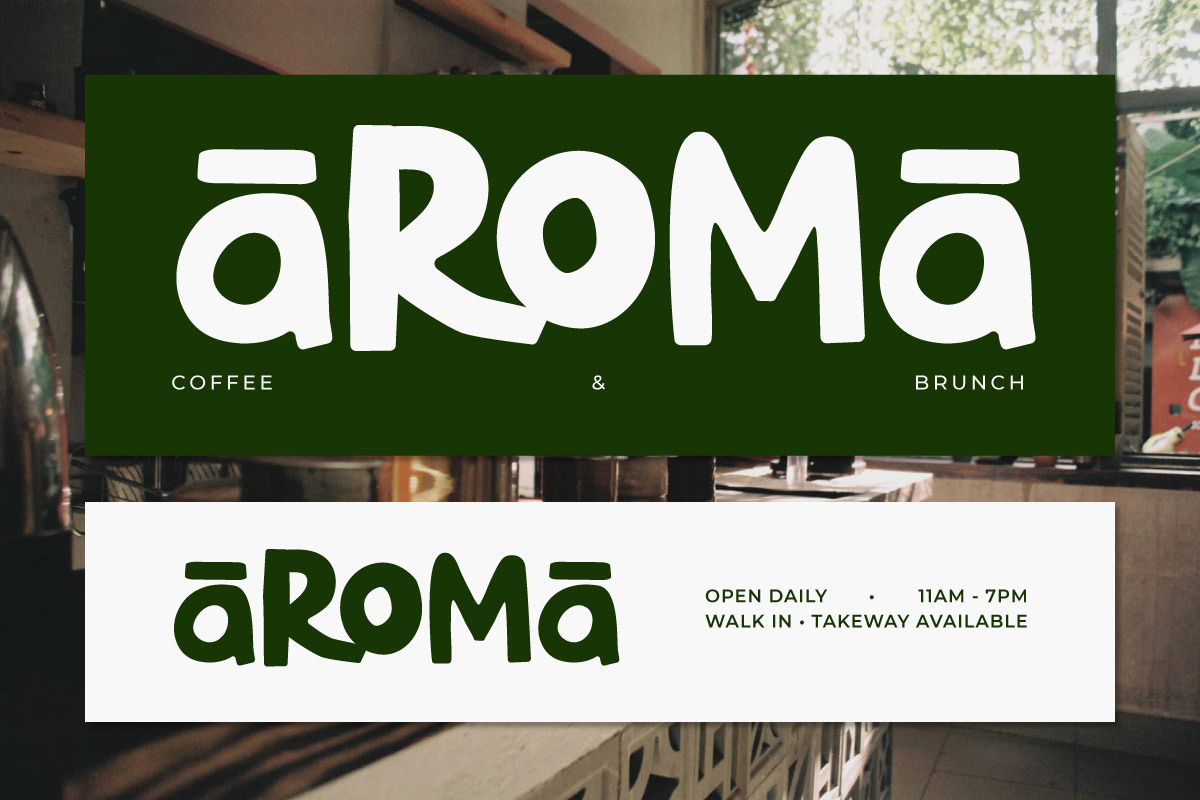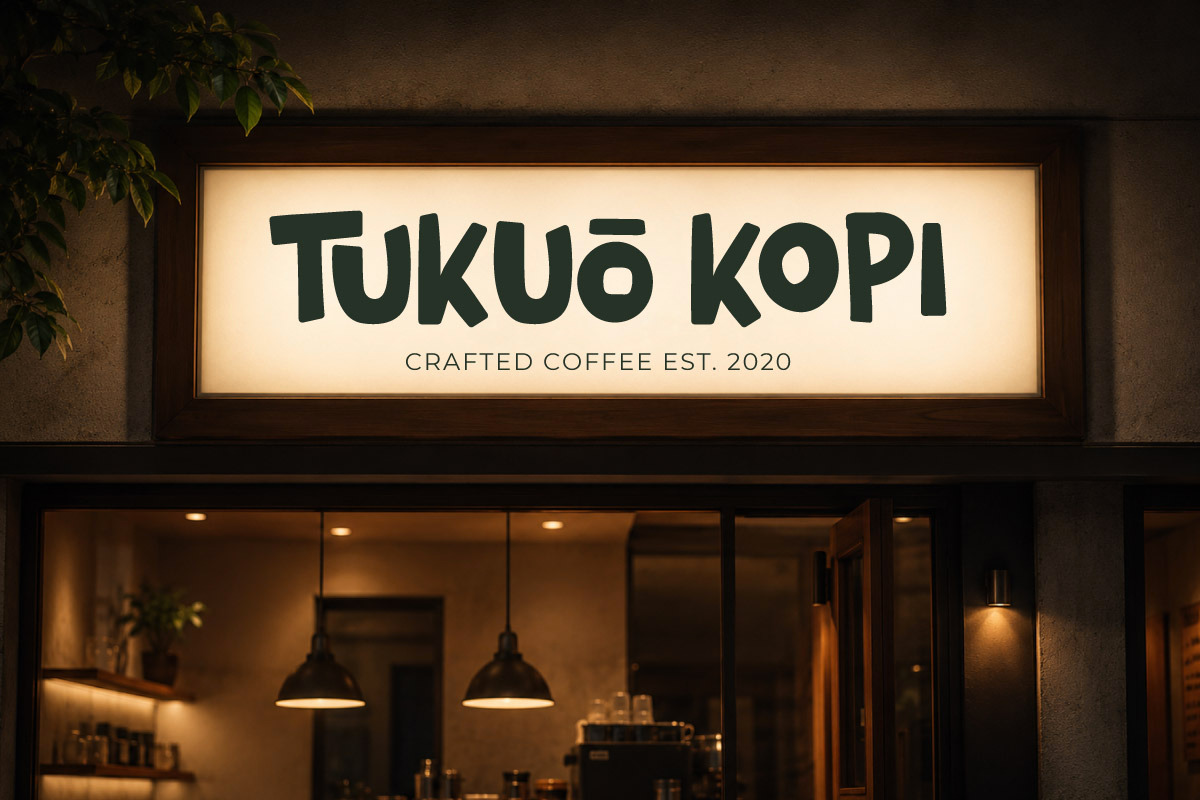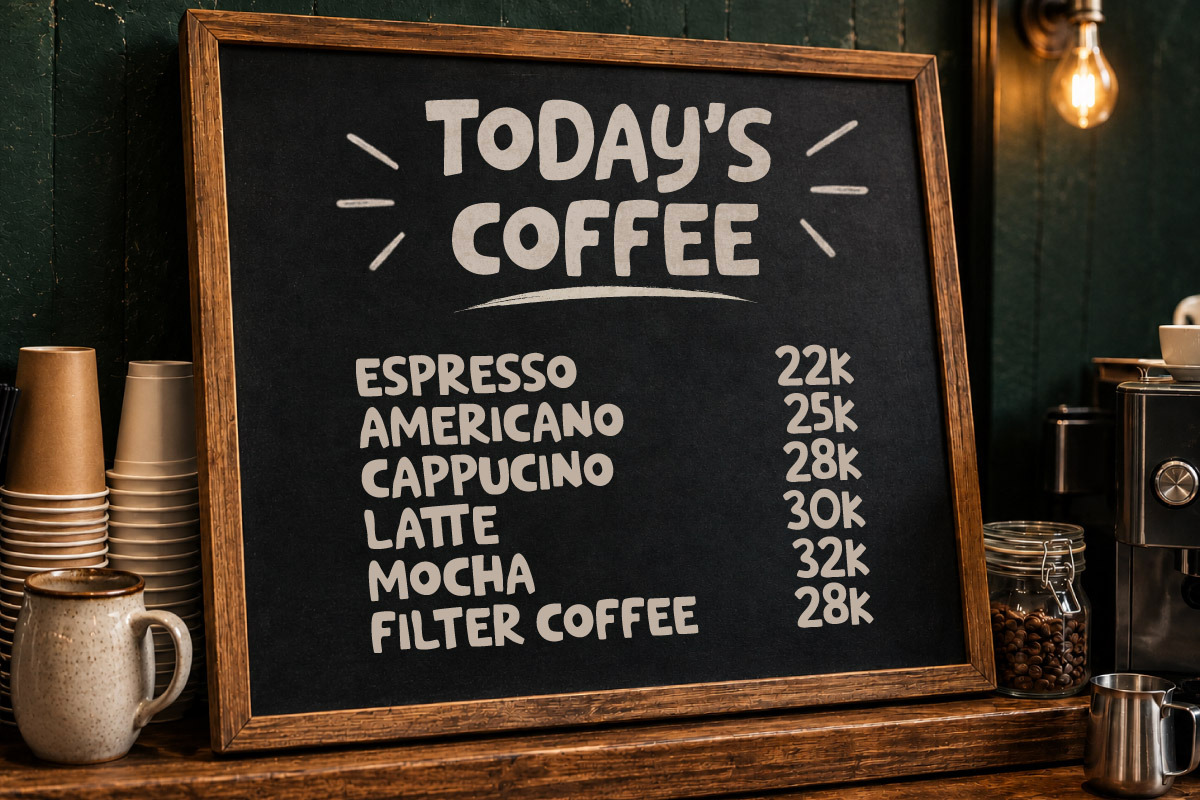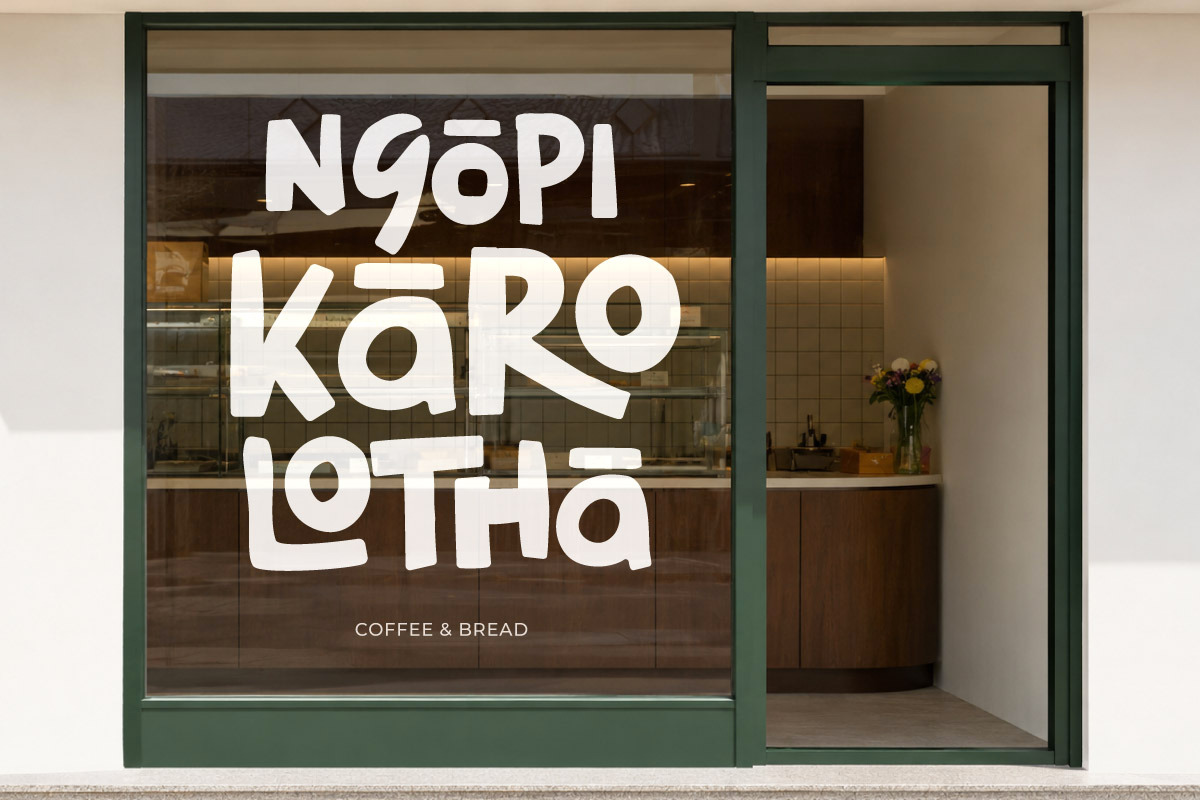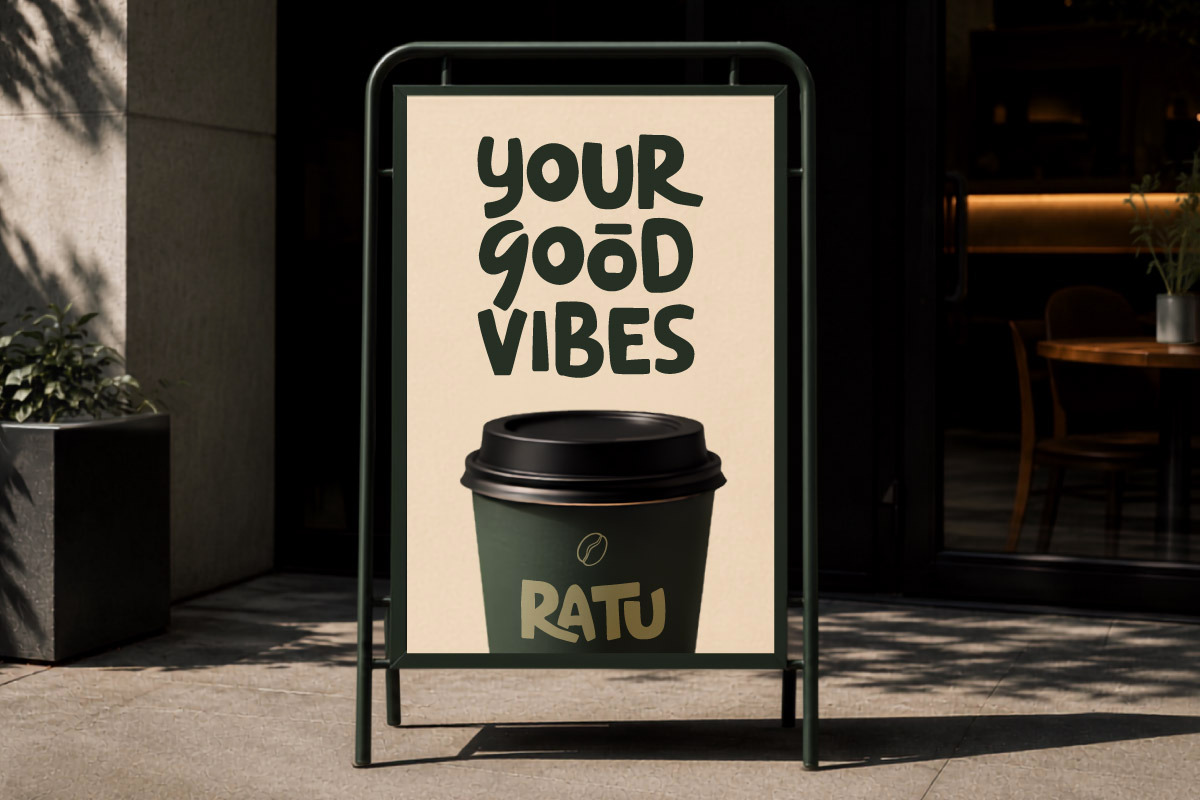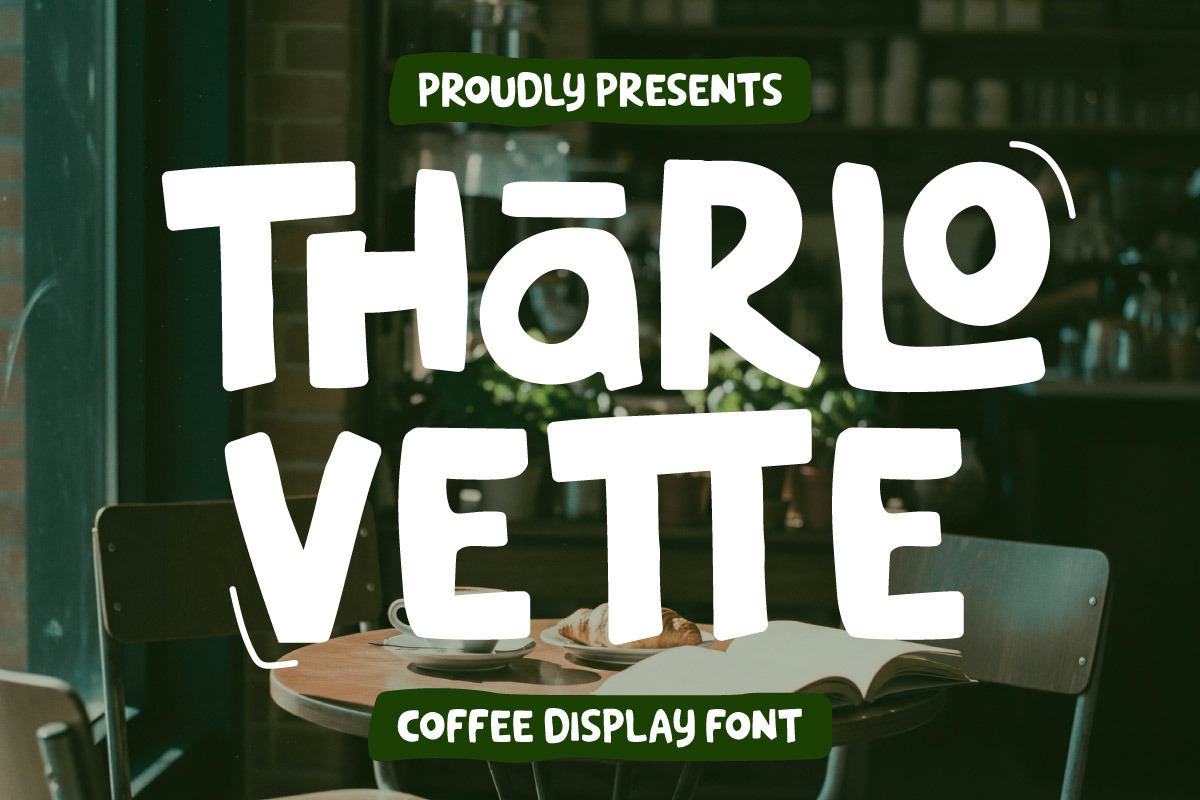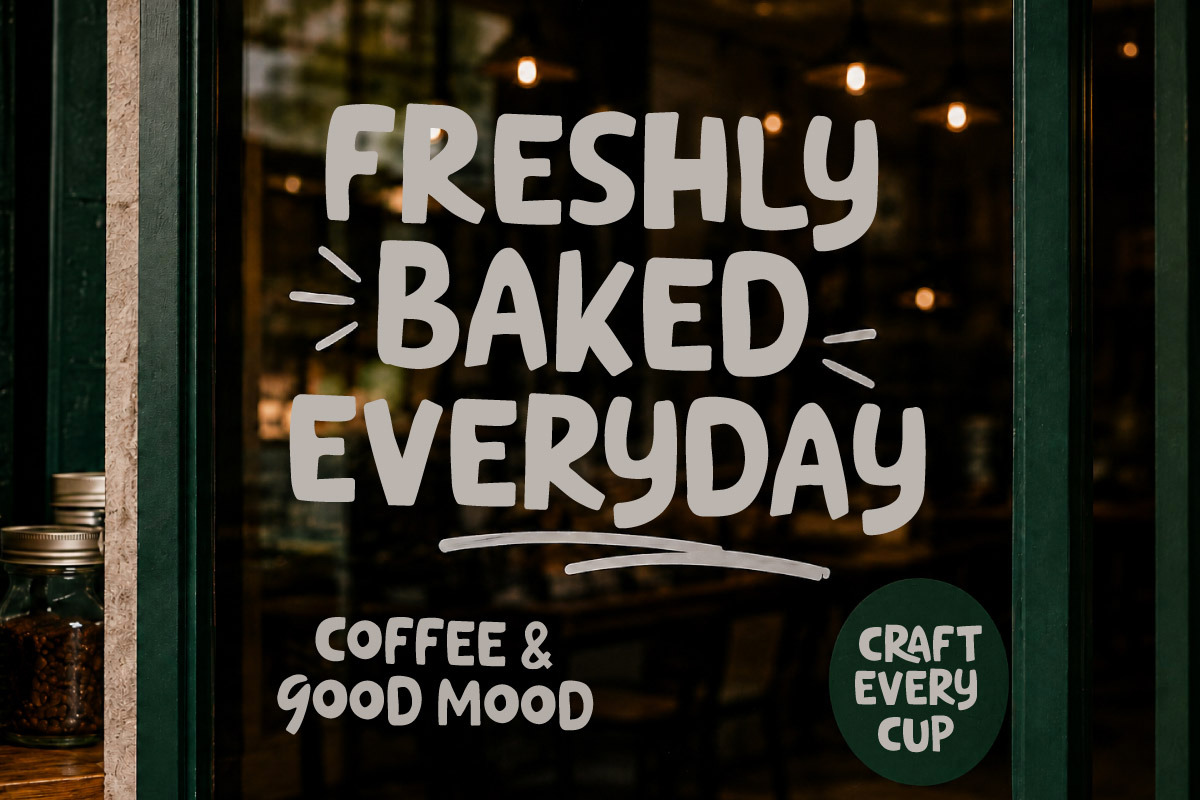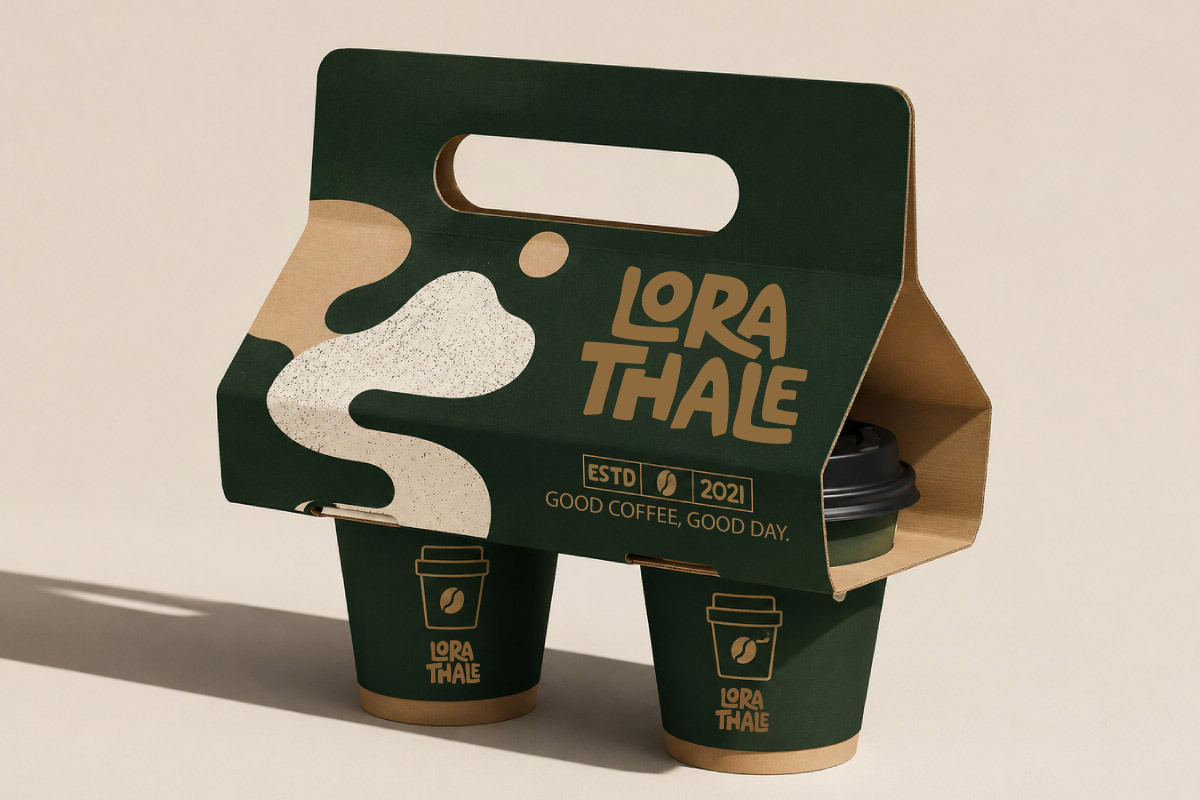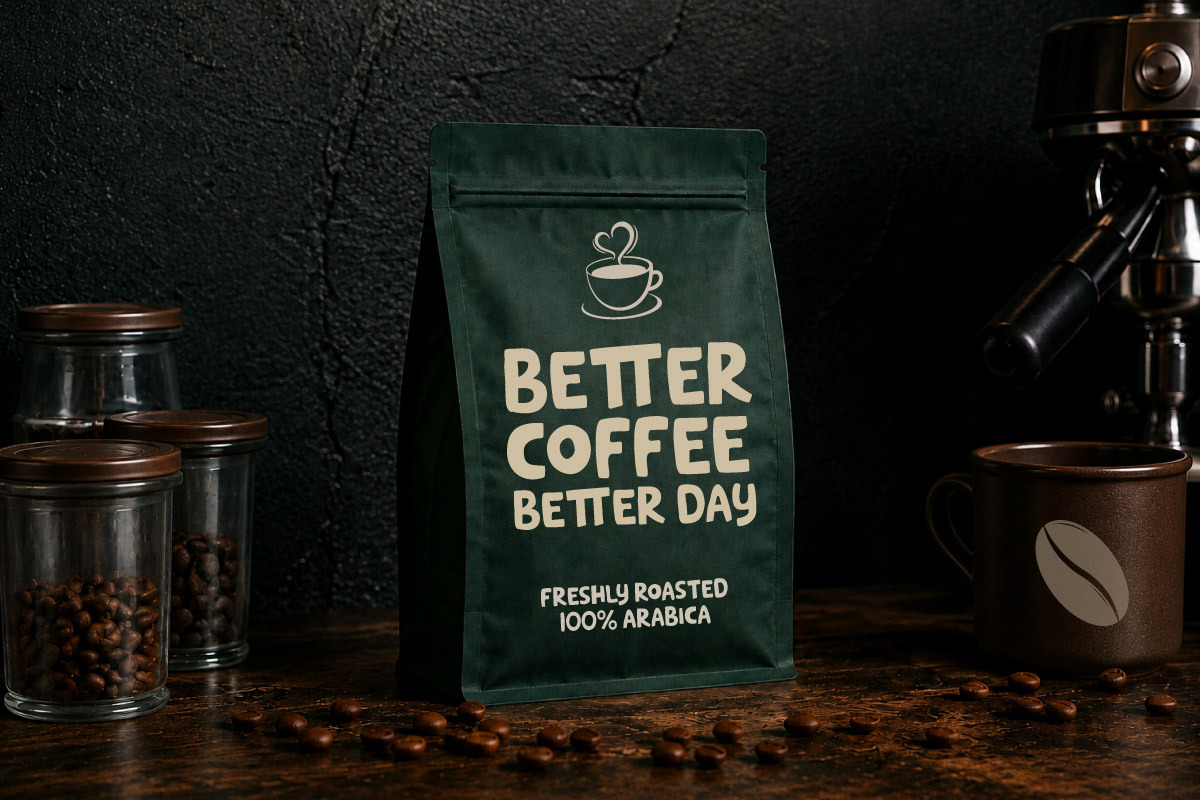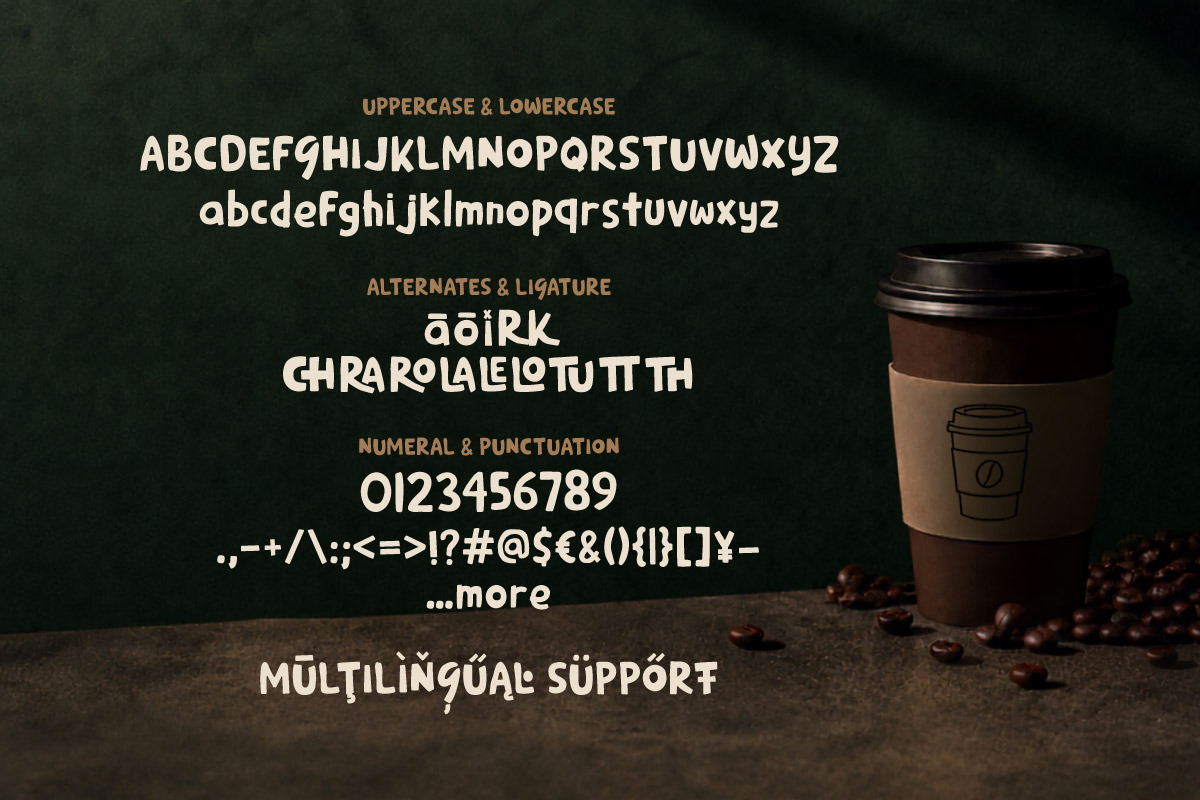
Tharlo Vette - Coffee Display Font
Tharlo Vette – Coffee Display Font is a handwritten display font featuring rounded, organic, and playful letterforms that create a warm, friendly, and cozy feeling. Its bold yet approachable character makes it perfect for building a memorable visual identity for food and coffee lifestyle brands.
Designed for coffee shops, artisanal culinary brands, bakeries & pastry businesses, and local roasteries, this font works beautifully for coffee shop branding, logos, menus, packaging, signage, coffee labels, bakery branding, product packaging, and promotional materials. Its rounded and organic forms add a handcrafted touch for brands that want to feel authentic and welcoming.
Tharlo Vette is an ideal choice for graphic designers, café owners, food brands, roasters, and creative agencies looking for a handwritten display font with a distinctive personality for creating personal, modern, and recognizable culinary branding.
- PUA Encoded: All glyphs are fully accessible without any additional software.
- Multilingual Support: Fully supports 85+ languages, including:
Afrikaans, Albanian, Asu, Basque, Bemba, Bena, Breton, Catalan, Chiga, Cornish, Croatian, Czech, Danish, Dutch, Embu, English, Esperanto, Estonian, Filipino, Finnish, French, Friulian, Galician, Gusii, Hungarian, Indonesian, Irish, Italian, Kabuverdianu, Kalenjin, Kamba, Kikuyu, Kinyarwanda, Latvian, Lithuanian, Lower Sorbian, Luo, Luxembourgish, Luyia, Machame, Makhuwa-Meetto, Makonde, Malagasy, Maltese, Manx, Meru, Morisyen, North Ndebele, Norwegian Bokmål, Norwegian Nynorsk, Nyankole, Oromo, Polish, Portuguese, Quechua, Romanian, Romansh, Rombo, Rundi, Rwa, Samburu, Sango, Sangu, Scottish Gaelic, Sena, Serbian, Shambala, Shona, Slovak, Slovenian, Soga, Somali, Spanish, Swahili, Swedish, Swiss German, Taita, Teso, Turkish, Upper Sorbian, Uzbek (Latin), Volapük, Vunjo, Walser, Zulu.